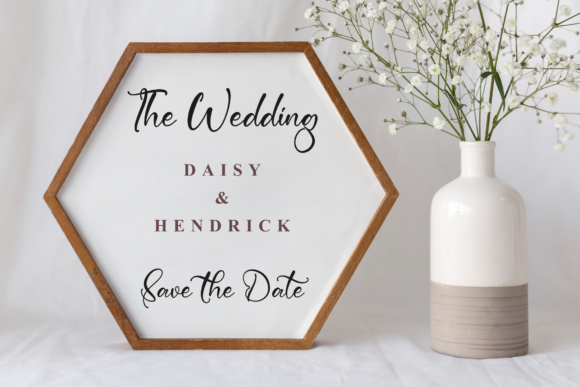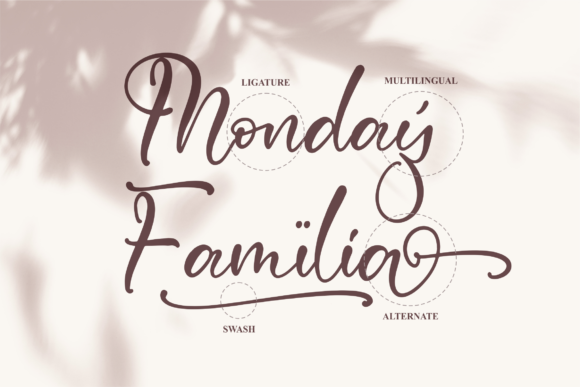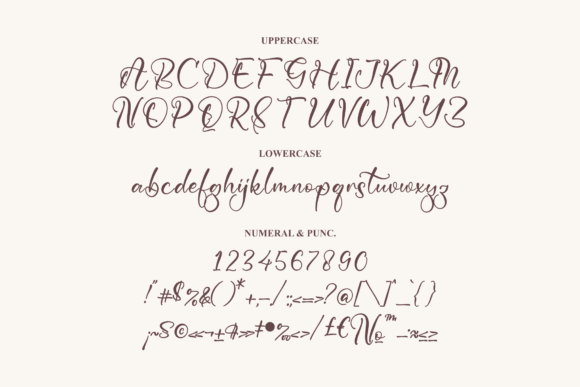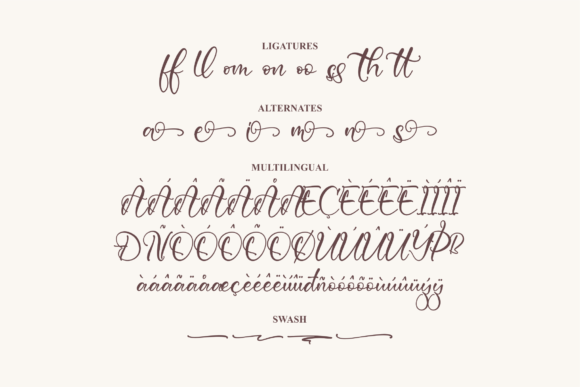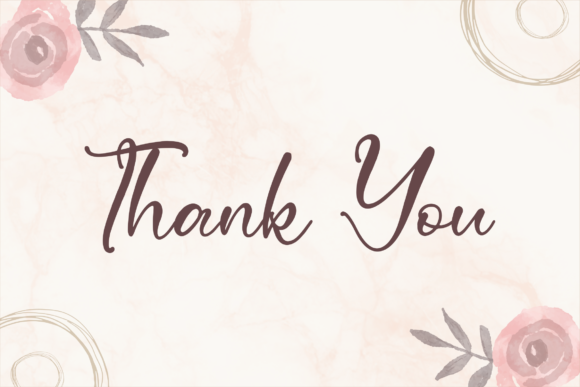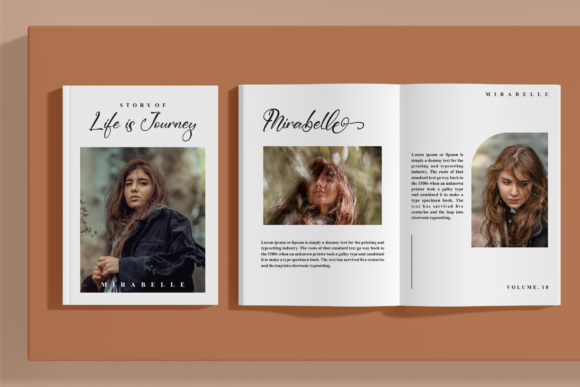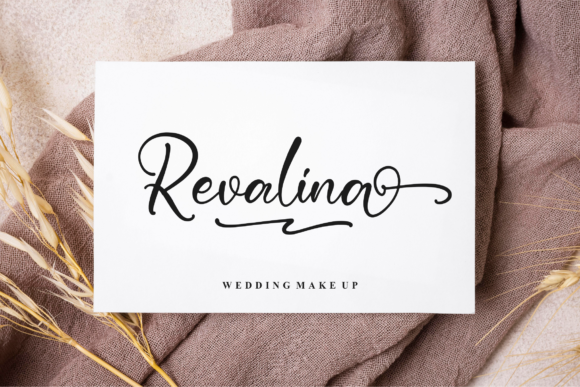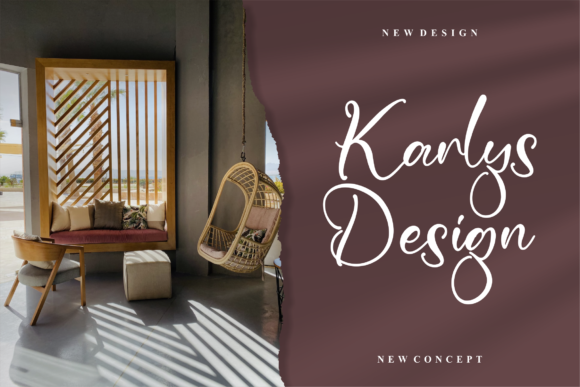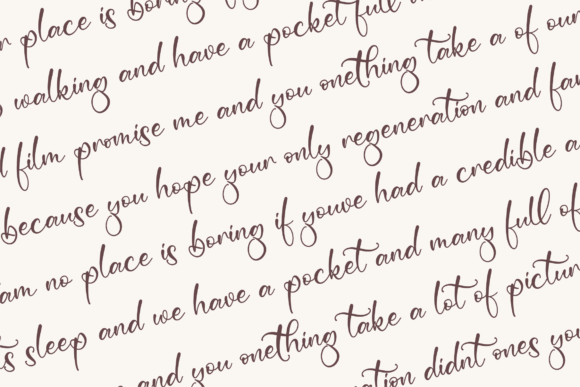
Runthela Vinetan Font
About Runthela Vinetan Font
Runthela Vinetan is a lovely script font carefully created with a touch of trendiness. Whether you’re looking for fonts for Instagram or calligraphy scripts for DIY projects, this font will turn any creative idea into a true piece of art!